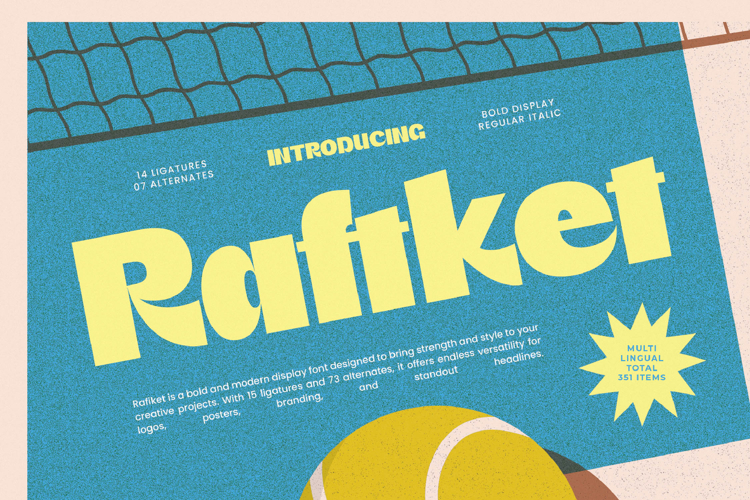
Raftket - Bold Display Sans Serif Font
Unleash the power of bold design with Raftket - Bold Display Sans Serif Font. This exceptional typeface commands attention, exuding a confident and modern aesthetic that instantly elevates any project. Its robust structure and clean lines ensure maximum impact, making it the definitive choice for visuals that need to truly stand out.
Discover unparalleled creative freedom with Raftket - Bold Display Sans Serif Font. Featuring an impressive array of 15 ligatures and 73 alternates, this font offers extensive customization, allowing designers to craft truly unique branding and typographic expressions. These comprehensive OpenType features ensure your designs are always distinctive and memorable.